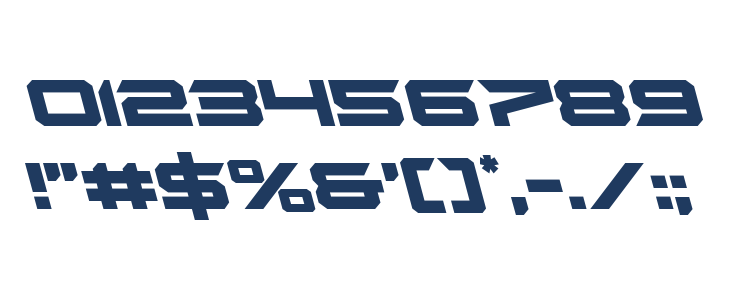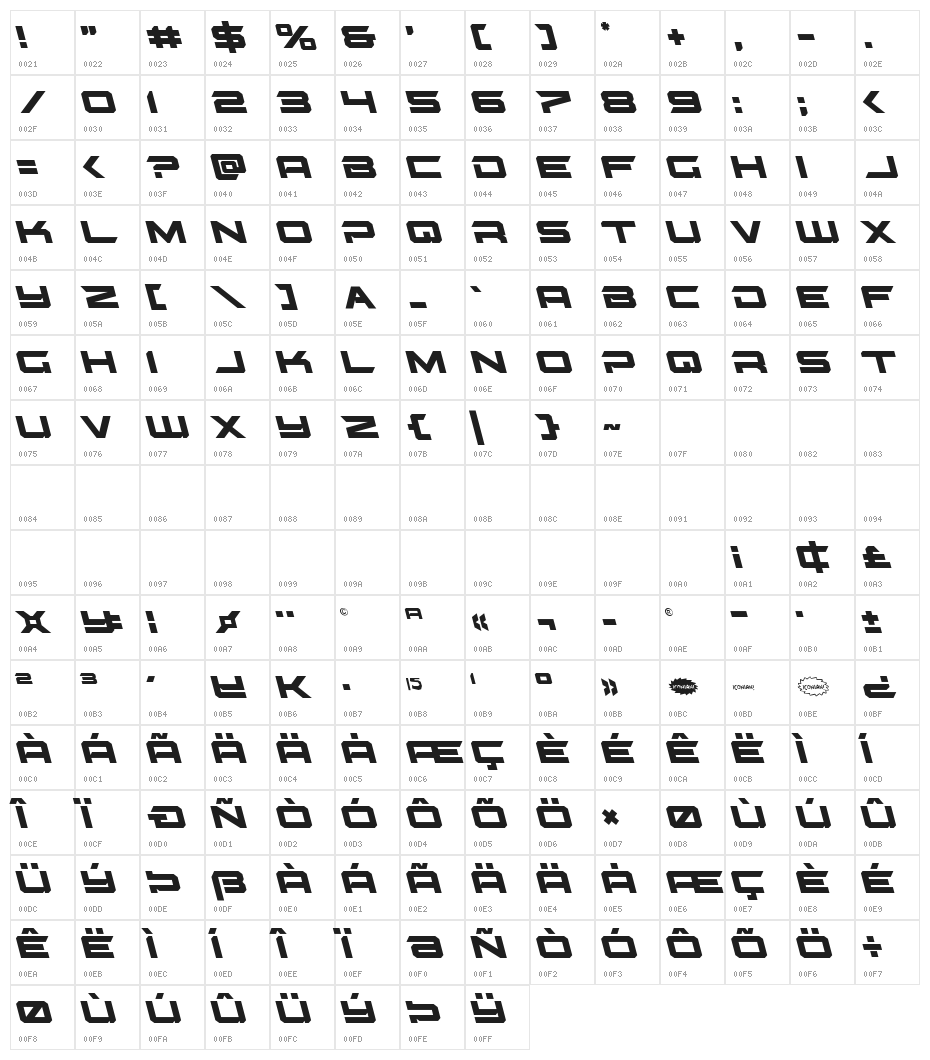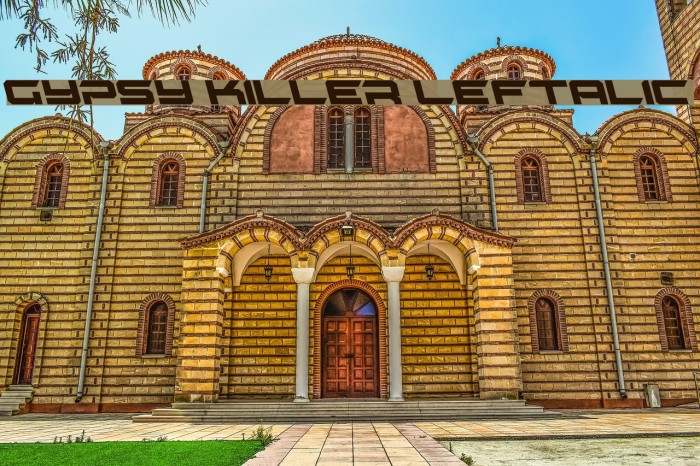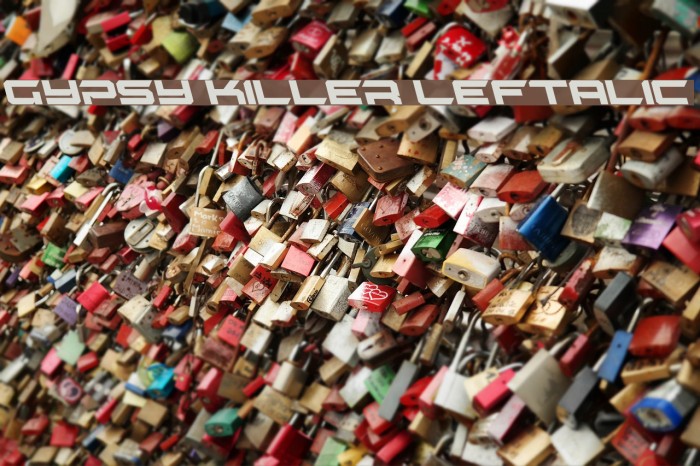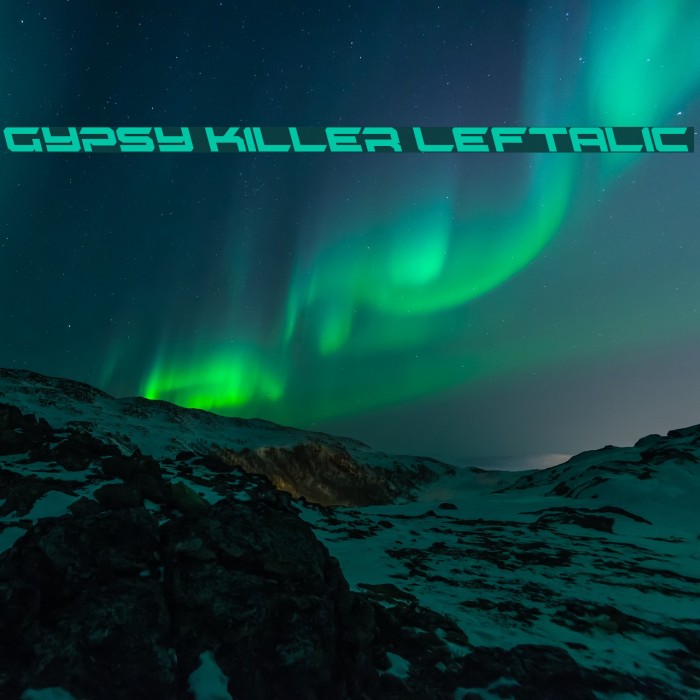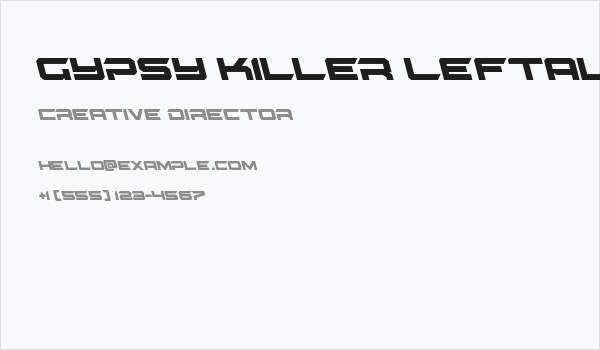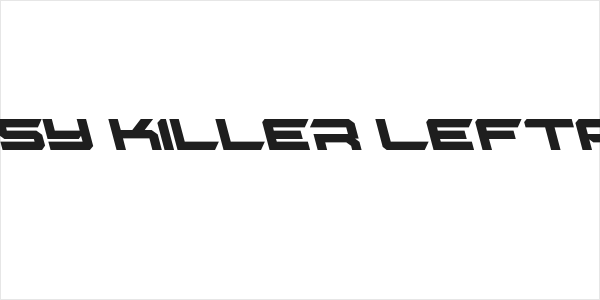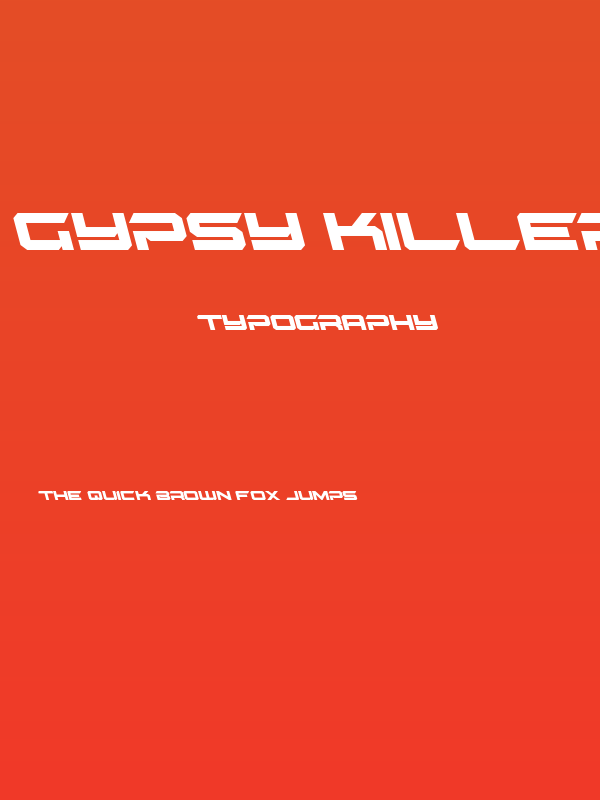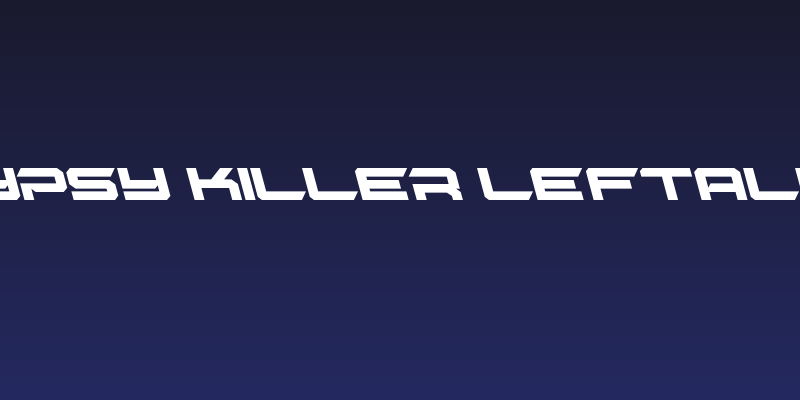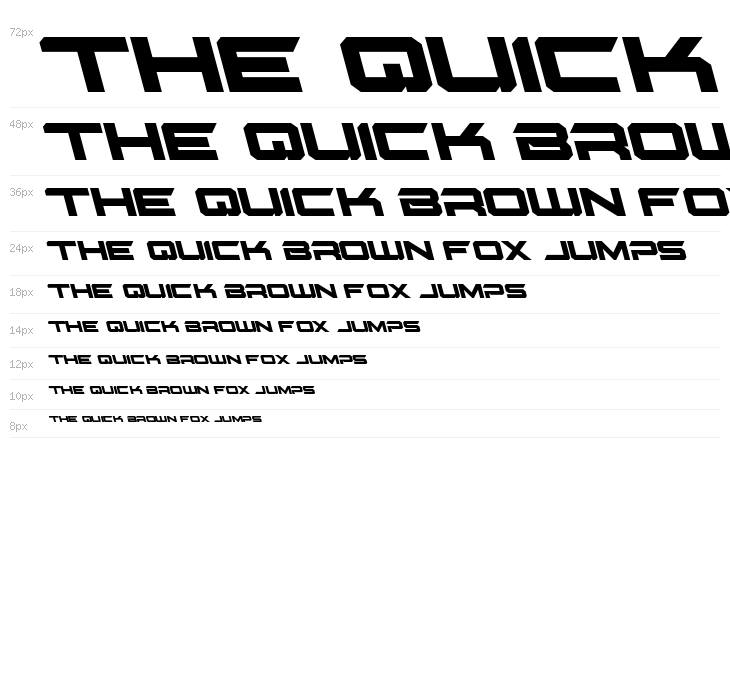
Gypsy Killer Leftalic Font
Gypsy Killer Leftalic Description
This font features a bold, angular design with a futuristic and edgy appearance. The characters are constructed with sharp, geometric lines and have a distinct slant, giving them a dynamic and aggressive look. The uppercase and lowercase letters maintain a consistent style, with the uppercase being more prominent and impactful. The numerals and special characters follow the same design principles, ensuring uniformity across the typeface. This font's unique style makes it stand out, suitable for projects that require a modern and bold statement.